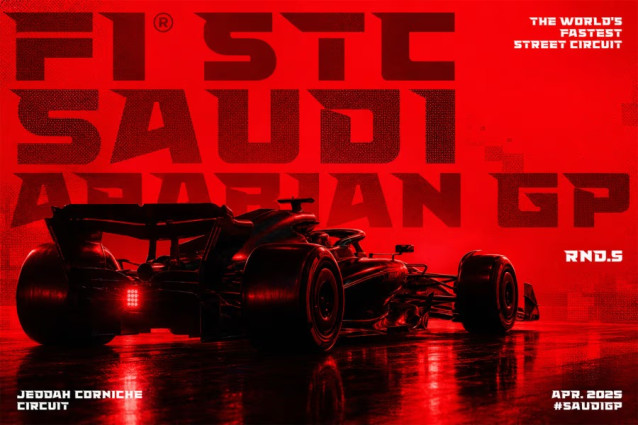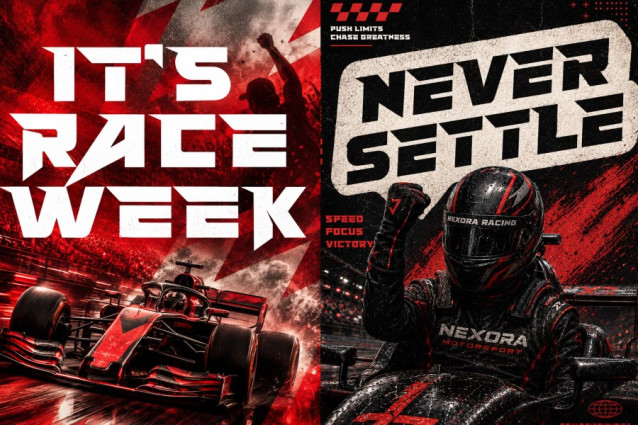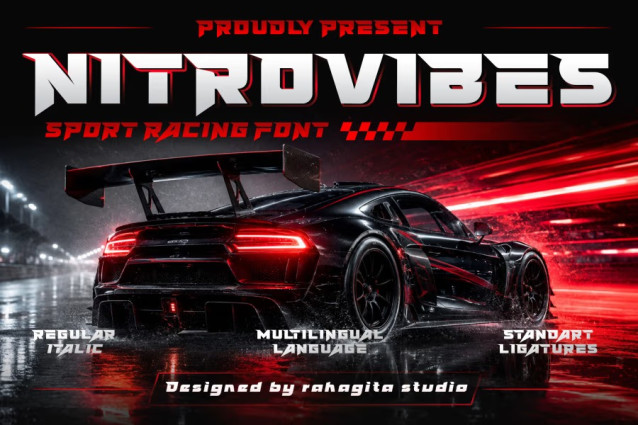
Nitrovibes Font
Nitrovibes Font is a bold racing-inspired display font designed for sports, gaming, motorsports, and high-energy branding. Featuring sharp, dynamic letterforms and an aggressive style, it creates a strong visual impact that instantly captures attention while conveying speed, motion, and excitement. Its unforgettable visual presence makes it ideal for logos, posters, apparel, esports graphics, and promotional materials, ensuring every message stands out with confidence, power, and energy